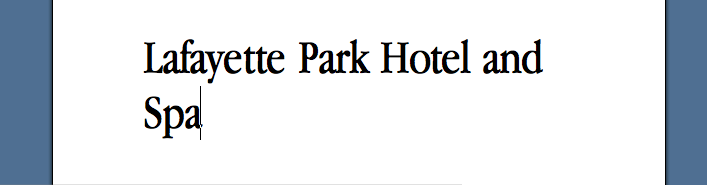
So, in case you haven't found this website, dafont.com, they have the best downloadable free fonts out there. I downloaded Apple Garamond yesterday for my school paper and came out great (just like the old Apple lettering) but today, I tried using it for something in PowerPoint, and it looked completely different. It was sans serif instead of serif and altogether wrong. I went back to Word and tried it and it was how it should be looking; the same way it looked last night. What is wrong?
I added some pictures. The one on the right is text in Word, the one on the left is how the same font looks in PowerPoint.
Oh and I viewed the presentation full screen and it looks different to what it looks like while editing the slide! Here's another pic while shown in full screen.
Not since the creatiton of the PowerPoint, but I have closed it and then opened it again. PowerPoint does such weird things, like mess with fonts or take out option shift k.